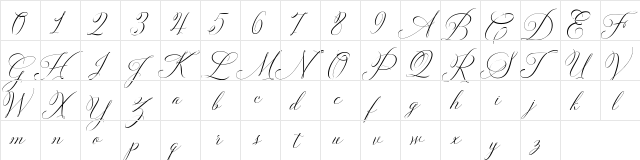
Solidaritha Script Regular
Design Context for Solidaritha Script Typeface
Solidaritha Script brings a calligraphic fluidity to the page — its connecting strokes and expressive curves give it an unmistakably human quality.
Font Pairing: Combine Solidaritha Script with a simple geometric sans for maximum contrast — the tension between flowing curves and clean structure is a classic typographic pairing.
Pro Tip: Use Solidaritha Script for short runs of text — names, titles, or taglines. Extended body copy in script faces tires the eye quickly.